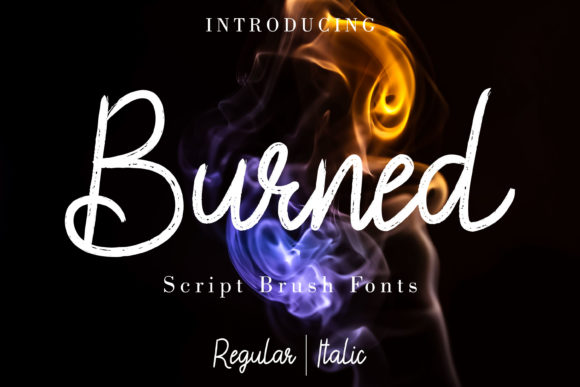
Introducing Burned Font: A Unique Brush Script Font Family
In the world of typography, fonts play a crucial role in conveying messages, expressing emotions, and creating visual identities. Among the numerous font styles available, brush script fonts have gained immense popularity for their elegance, sophistication, and artistic appeal. One such font that has caught the attention of designers and typography enthusiasts is Burned Font, a unique brush script font family crafted with precision stroke shapes. In this article, we’ll delve into the features, benefits, and uses of Burned Font, exploring its potential to elevate your designs.
What is Burned Font?
Burned Font is a distinctive brush script font family designed to add a touch of elegance and personality to various design projects. Created with precision stroke shapes, this font boasts a unique, hand-crafted look that sets it apart from other script fonts. The Burned Font family is perfect for designers seeking a versatile and stylish font for their creative endeavors.
Key Features of Burned Font
- Unique Brush Script Style: Burned Font features a one-of-a-kind brush script style that adds a touch of sophistication and elegance to any design.
- Precision Stroke Shapes: The font is crafted with precision stroke shapes, giving it a hand-crafted look that’s both artistic and refined.
- Versatility: Burned Font is suitable for a wide range of design applications, from displays and wedding invitations to logos, advertisements, and social media posts.
- Easy to Read: Despite its artistic nature, Burned Font remains easy to read, making it perfect for body text and captions.
Uses of Burned Font
Burned Font’s versatility makes it an excellent choice for various design projects, including:
- Displays and Headings: Use Burned Font to create stunning displays and headings that grab attention.
- Wedding Invitations: Add a touch of elegance to your wedding invitations with Burned Font’s sophisticated script style.
- Logos and Branding: Create unique logos and brand identities with Burned Font’s distinctive style.
- Advertisements: Use Burned Font to create eye-catching advertisements that stand out from the crowd.
- Social Media Posts: Elevate your social media posts with Burned Font’s artistic and engaging style.
- Product Packaging Designs: Add a personal touch to your product packaging designs with Burned Font’s unique script style.
- Labels and Stationery: Use Burned Font to create beautiful labels and stationery that reflect your brand’s personality.
- Photography Watermarks: Add a touch of sophistication to your photography watermarks with Burned Font.
- Greeting Cards: Create stunning greeting cards with Burned Font’s elegant script style.
- Websites: Use Burned Font to add a touch of elegance and sophistication to your website’s typography.
Benefits of Using Burned Font
Burned Font offers several benefits to designers and typography enthusiasts, including:
- Unique Style: Burned Font’s distinctive style sets it apart from other script fonts, making it an excellent choice for designers seeking a unique look.
- Versatility: The font’s versatility makes it suitable for various design applications, saving designers time and effort.
- Elegance and Sophistication: Burned Font adds a touch of elegance and sophistication to any design, making it perfect for high-end brands and luxury products.
- Easy to Read: Despite its artistic nature, Burned Font remains easy to read, making it suitable for body text and captions.
Tips for Using Burned Font Effectively
To get the most out of Burned Font, follow these tips:
- Use it Sparingly: Use Burned Font sparingly to avoid overwhelming your design. It’s perfect for headings, titles, and emphasis text.
- Pair it with Other Fonts: Pair Burned Font with other fonts to create a unique and visually appealing typography.
- Adjust Font Size and Color: Adjust the font size and color to suit your design’s needs and ensure Burned Font remains legible.
- Experiment with Text Effects: Experiment with text effects, such as shadows and gradients, to add depth and dimension to your Burned Font text.
Burned Font is a unique and versatile brush script font family that offers a range of creative possibilities for designers and typography enthusiasts. Its precision stroke shapes, elegant style, and ease of readability make it perfect for various design applications. By incorporating Burned Font into your design projects, you’ll add a touch of sophistication and elegance that sets your work apart. Whether you’re designing displays, wedding invitations, logos, or social media posts, Burned Font is an excellent choice for creating stunning and effective designs.